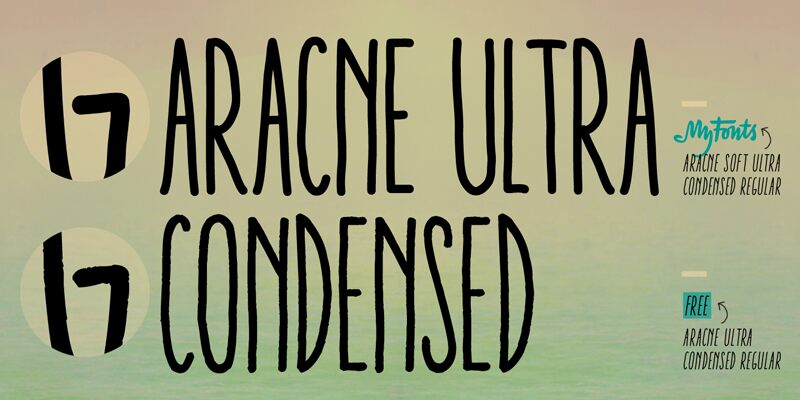
Aracne Ultra Condensed Light Italic, credited to Julia Martinez Diana and Antipixel, is a free ultra-condensed handwritten font. Its very tall capitals use hairline strokes, pinched curves, and slight changes in width that keep the lettering visibly hand drawn. The uneven lean and narrow spacing create a restless, fashion-sketch quality rather than a tidy script.
Indie music and handmade fashion are its clearest territory. That wiry silhouette can shape poster titles and clothing labels, while book covers and event graphics gain a raw, elongated lettering element related closely to pen-and-ink illustration.